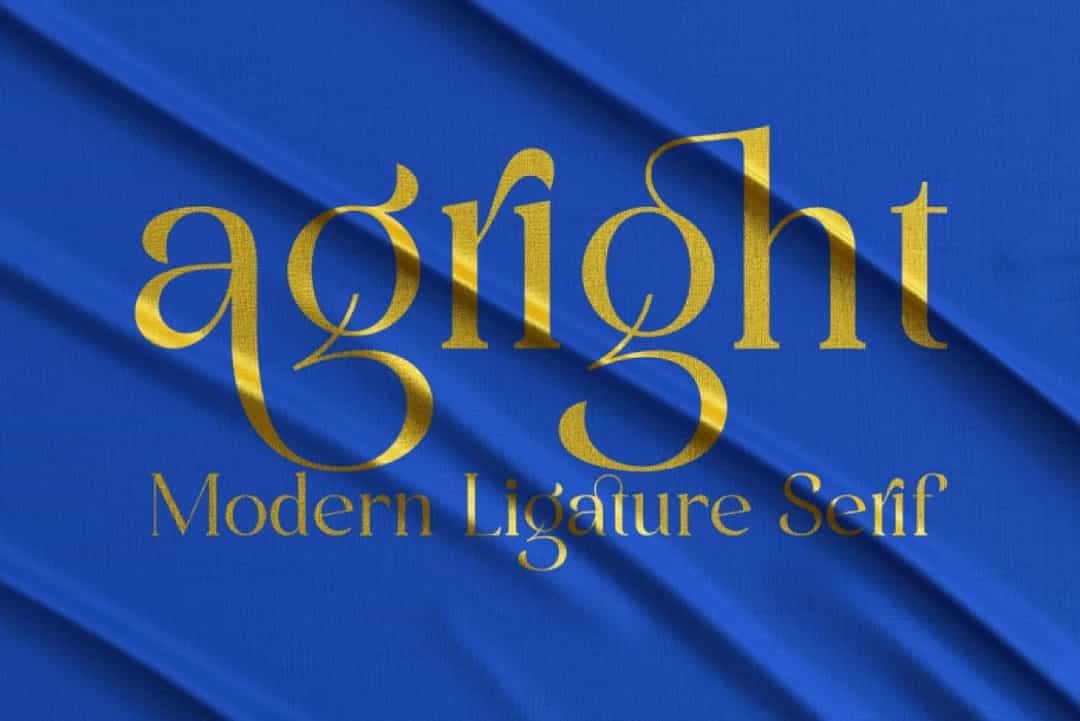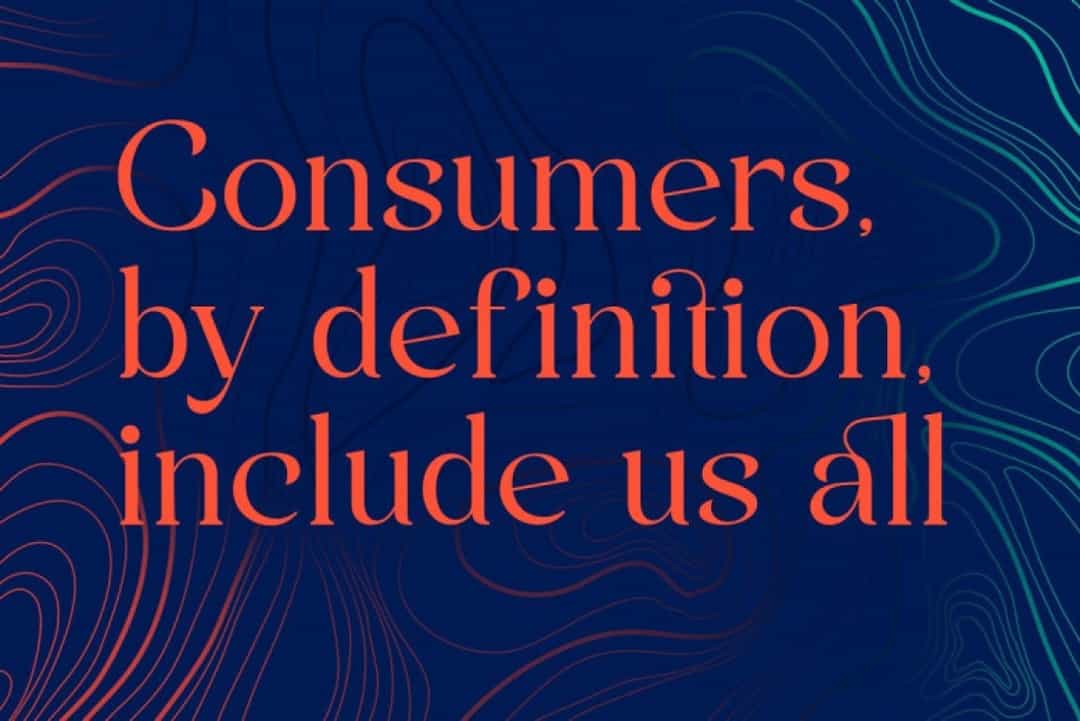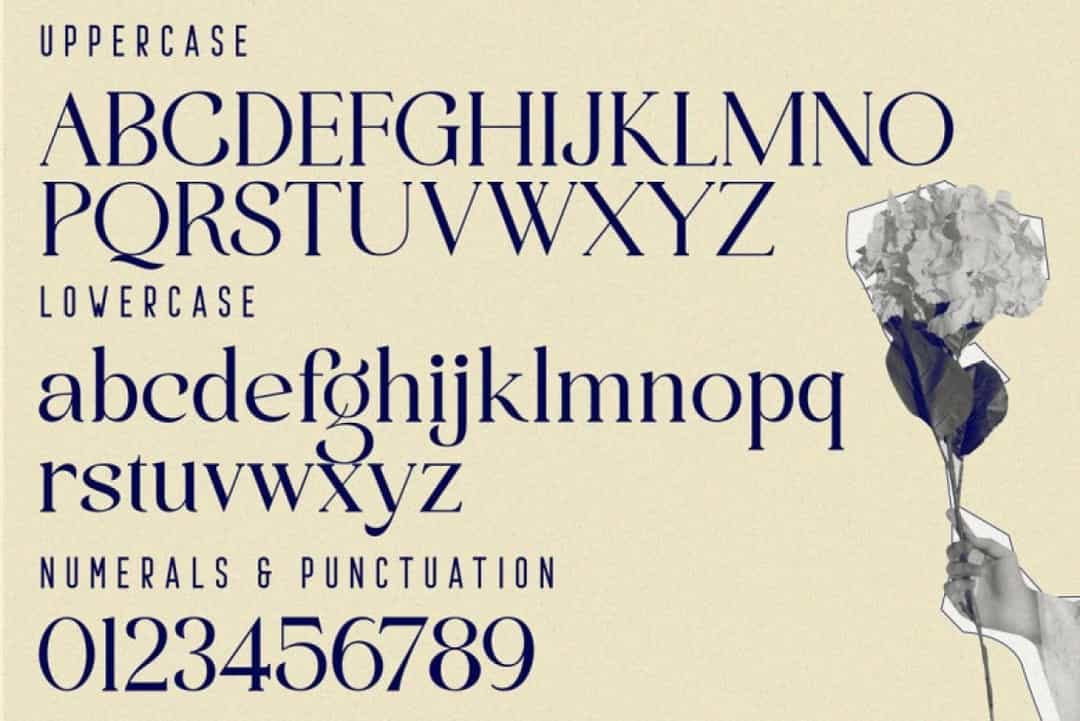
Agright Font is an eye-catching OpenType serif font featuring curving letters that appear to dance and twist for unique and stylish typography styles. Additionally, its numerous interwoven Opentype Ligatures give users plenty of choices and variety when creating the final look.